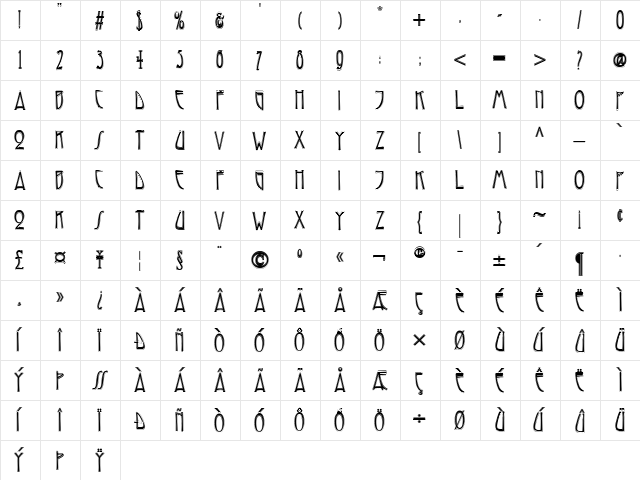
Reynold Contour Regular Font Preview
Reynold Contour Regular
Design Context for Reynold Contour Typeface
Reynold Contour is a composed and adaptable typeface that performs quietly and consistently across a wide range of design contexts.
Pro Tip: Use Reynold Contour in both headline and body roles to test its range before committing to a single application.